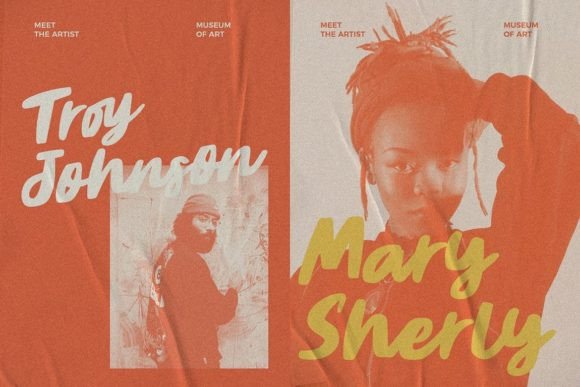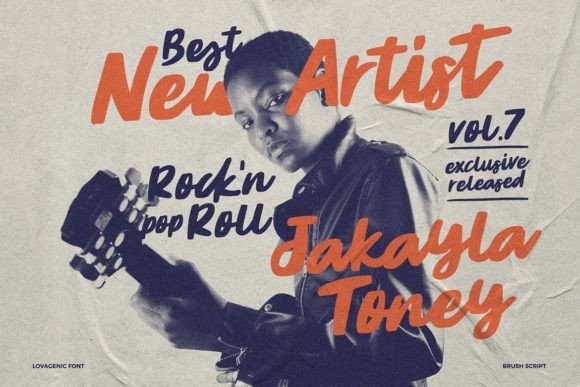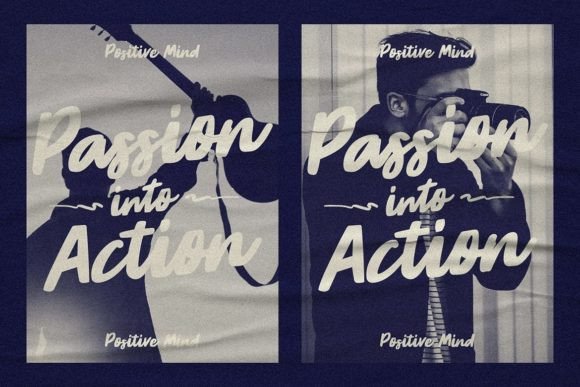
Introduction to Lovagenic Font
Do you remember the rush of excitement you felt when you first stumbled upon the perfect font for your creative project? It’s that moment of pure inspiration, when everything falls into place, and your design takes on a life of its own. For designers, finding the right font can make all the difference between a good design and a great one. And, if you’re looking for a font that adds a touch of handmade elegance to your work, you’re in luck – meet the Lovagenic Font.
This beautiful, handmade script font is a game-changer for designers who want to add a high-quality, organic feel to their projects. With its expressive and flowing lines, Lovagenic Font is perfect for branding logos, hand lettering, flyers, greeting cards, packaging, or apparel design. Whether you’re working on a free download or a paid project, this font is sure to impress with its unique personality and versatility.
Key Features of Lovagenic Font
- High-quality design resource with a unique, elegant aesthetic
- Transparent background, making it ideal for creative projects requiring a clean, minimalist look
- Includes a comprehensive character set with support for multiple languages
- Perfect for use in logos, branding, and other visual identity projects due to its versatility and sophistication
- Suitable for both digital and print applications, including web design, advertising, and publishing
Honest Review: Lovagenic Font
I recently stumbled upon the Lovagenic Font and I’m excited to share my honest review with you. As a designer, I’m always on the lookout for high-quality design resources that can elevate my creative projects. The Lovagenic Font is a great addition to any designer’s toolkit.
What works well: ✨ The Lovagenic Font has a unique and modern design aesthetic that’s perfect for a wide range of creative projects, from branding and advertising to digital products and websites. The font is highly customizable and can be easily paired with other design elements to create a cohesive look.
- High-quality design, suitable for a variety of creative projects
Limitations: ⚠️ While the Lovagenic Font is a great resource, it may not be suitable for projects that require a more traditional or classic font style. Additionally, the font may not be as versatile as some other design resources on the market.
Overall, I’m impressed with the Lovagenic Font and would highly recommend it to designers looking for a unique and modern font to add to their toolkit.
Tips for Getting the Most Out of Lovagenic Font
Use the Lovagenic Font in conjunction with other design elements to create a cohesive and visually appealing design.
Experiment with different font sizes, colors, and styles to find the perfect combination for your project.
Common Use Cases for Lovagenic Font
The Lovagenic Font is perfect for:
Blog posts and articles
Marketing materials and brochures
Website headers and footers